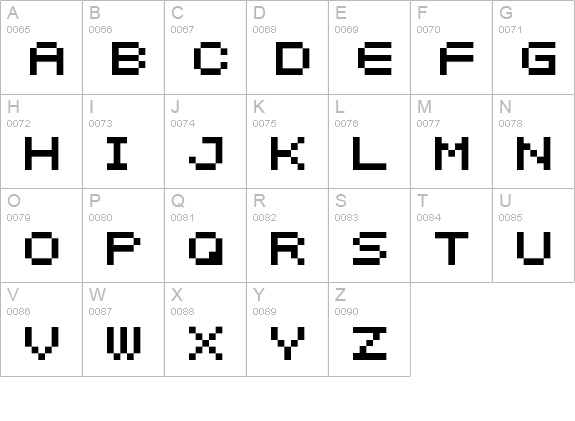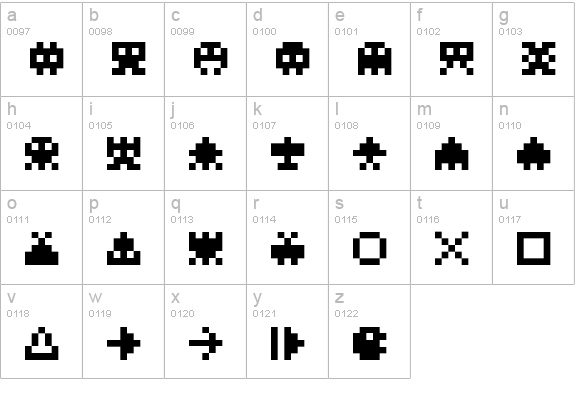
04b 21 font is a sleek and modern typeface that is perfect for adding a contemporary touch to your designs. With its clean lines and sharp edges, this font exudes a sense of professionalism and sophistication. The geometric shapes and minimalist design make it versatile and suitable for a wide range of projects. What's even better is that 04b 21 font is available for free download at FontsMarket.com. You can easily access this stylish font and use it in your personal or commercial projects without any hassle. Don't miss out on this fantastic opportunity to enhance your designs with a high-quality typeface that will make them stand out.